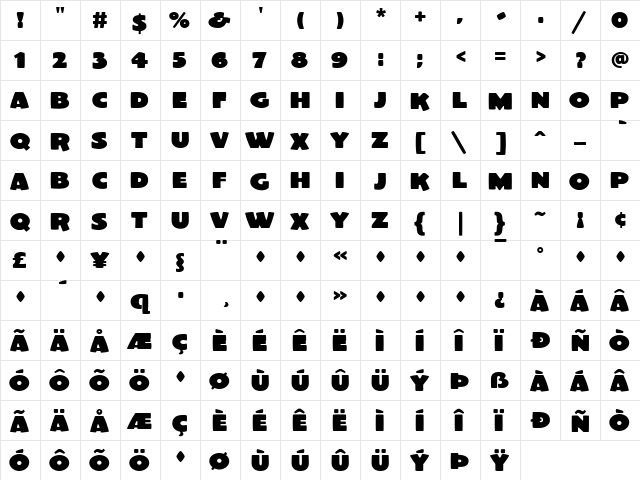
ElGrande Regular
| Foundry | Copr. Jim Parkinson. Designed by Jim Parkinson. Produced by The Font Bureau, Inc |
Design Context for ElGrande Typeface
ElGrande is a composed and adaptable typeface that performs quietly and consistently across a wide range of design contexts.